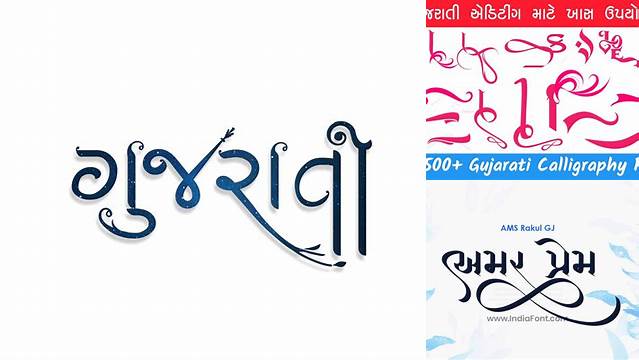
Create Stylish Gujarati Calligraphy Fonts Easily
Hey guys! Are you looking to add a touch of elegance and tradition to your designs? Then you've come to the right place! In this article, we're diving deep into the world of stylish Gujarati calligraphy fonts, exploring how you can generate them and use them to create stunning visuals. Whether you're a seasoned designer or just starting, this guide will give you all the insights you need. Let's get started!
What is Gujarati Calligraphy?
Gujarati calligraphy, guys, is more than just fancy writing; it's a beautiful art form with deep cultural roots. It involves writing the Gujarati script in a decorative and artistic manner, often used for invitations, religious texts, and other special occasions. The flowing lines and unique character shapes make it stand out. Understanding the essence of Gujarati calligraphy helps in appreciating and utilizing stylish Gujarati calligraphy fonts effectively.
To really get what Gujarati calligraphy is all about, think of it like this: it's like taking the everyday letters we use and giving them a super stylish makeover. Each stroke is carefully crafted, and the overall effect is just mesmerizing. The history behind it is pretty cool too, with influences from ancient scripts and artistic traditions. It's no wonder these fonts are so popular for adding a touch of class and culture to designs. So, when you're thinking about using stylish Gujarati calligraphy fonts, remember you're not just picking a font; you're embracing a whole artistic heritage.
And hey, let’s talk about why it matters today. In a world full of digital fonts, these calligraphy styles stand out because they bring that human touch back into design. They're perfect for wedding invites, logos, or anything where you want to convey a sense of tradition and elegance. Plus, with the tools we have now, generating these fonts is easier than ever. You don't have to be a professional calligrapher to make something beautiful; you just need the right resources and a little bit of creativity. That’s what we're here to explore – how to tap into this rich tradition and make it work for your modern needs.
The Importance of Stylish Fonts in Design
Stylish Gujarati calligraphy fonts play a crucial role in design, setting the tone and mood of any project. The right font can elevate a design from ordinary to extraordinary, adding a touch of sophistication and cultural significance. Think about it – a beautiful font can make all the difference in grabbing attention and conveying the right message. The choice of font reflects the essence of the content, so selecting the perfect stylish Gujarati calligraphy fonts is paramount. Using the appropriate font creates visual harmony and enhances readability. Different fonts evoke different emotions, making font selection a key part of the design process.
Choosing the right font is kind of like picking the perfect outfit for an occasion, guys. You wouldn't wear jeans to a black-tie event, right? Similarly, you need to select a font that matches the vibe and purpose of your design. A stylish Gujarati calligraphy font can bring a touch of elegance and tradition, especially if you're working on something like wedding invitations or cultural event posters. But it's not just about looking pretty; it's also about making sure your message is clear and readable. A fancy font that's hard to decipher isn't going to do you any favors. So, when you're diving into font selection, think about the overall impact you want to create and how the font can help you achieve that.
And let's not forget about the emotional connection. Fonts have this incredible power to evoke feelings. A bold, modern font might convey confidence and innovation, while a stylish Gujarati calligraphy font can bring warmth and heritage to your design. It's all about understanding the subtle cues that fonts send and using them to your advantage. Think about brands that have iconic fonts – Coca-Cola, for example. Their font is instantly recognizable and associated with their brand. That's the kind of impact a well-chosen font can have. So, spend some time exploring different options, experimenting with combinations, and finding the font that truly speaks to your audience. It's a small detail that can make a huge difference.
Benefits of Using Gujarati Calligraphy Fonts
Using stylish Gujarati calligraphy fonts offers numerous benefits. They add a unique cultural flair, making designs stand out. These fonts are perfect for conveying elegance and tradition, enhancing the visual appeal of invitations, posters, and other materials. Moreover, they help preserve the cultural heritage by promoting the use of the Gujarati script in contemporary designs. The distinctive strokes and character shapes of stylish Gujarati calligraphy fonts create a memorable impression.
Think of it this way, guys: using stylish Gujarati calligraphy fonts is like adding a secret ingredient to your design recipe. It's that special something that makes your creation unique and memorable. In a world where everyone's bombarded with the same old fonts, using something like Gujarati calligraphy instantly sets you apart. It’s not just about aesthetics; it's about telling a story and connecting with your audience on a deeper level. These fonts carry a sense of history and tradition, which can add a whole new layer of meaning to your work.
And hey, let's be real – in the design world, standing out is everything. If you want your project to grab attention and leave a lasting impression, you need to think outside the box. Stylish Gujarati calligraphy fonts give you that edge. They're perfect for projects that need a touch of sophistication, like wedding invitations or branding materials for high-end products. But they're also great for more casual designs where you want to inject a bit of personality and flair. Plus, using these fonts helps to keep the Gujarati script alive and relevant in modern design. It's a way to honor your heritage while creating something fresh and contemporary. So, next time you're looking for a font that truly makes a statement, give Gujarati calligraphy a try. You might just be surprised at the magic it can bring.
Okay, so you're ready to dive into the world of stylish Gujarati calligraphy fonts, but where do you even start? Don't worry, guys, there are tons of resources out there to help you find the perfect generator. Think of it like going on a treasure hunt – the prize is a stunning font that will take your designs to the next level. A good starting point is to explore online font libraries and design resource websites. Many of these sites have dedicated sections for regional scripts, including Gujarati, and they often offer both free and premium fonts to choose from. It's like having a huge candy store for fonts – so much to choose from!